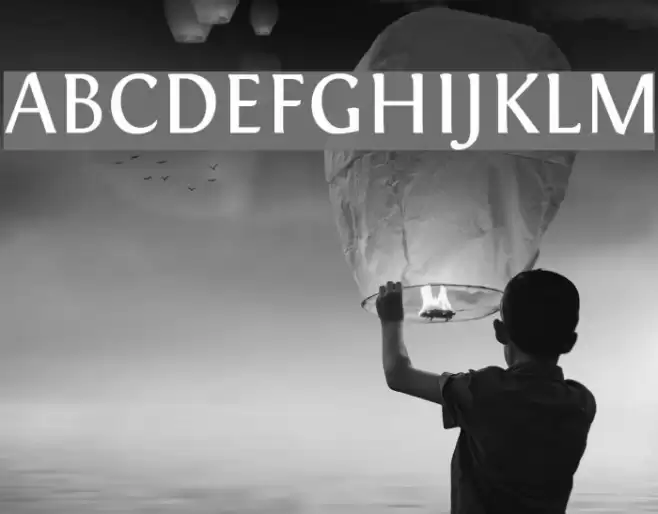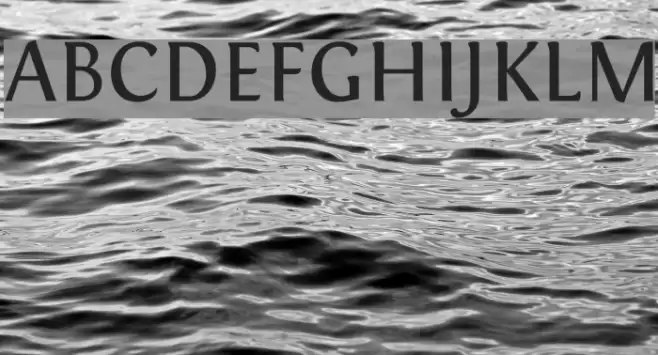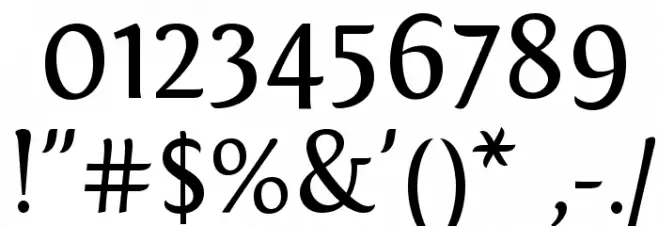
Fontin Regular Font
Fontin Regular Description
This font features a classic serif style with a modern twist, offering a balanced and elegant appearance. The characters are well-proportioned with slightly flared serifs that add a touch of sophistication. The uppercase letters are bold and commanding, while the lowercase letters maintain readability with a smooth flow. Numbers are clear and distinct, making them suitable for both display and text settings. Special characters are thoughtfully designed, maintaining the font's overall aesthetic. The font's versatility makes it ideal for a variety of applications, from print to digital media.
A modern serif font with elegant, flared serifs and balanced proportions from Calligraphic fonts.
- Overall Style: Classic